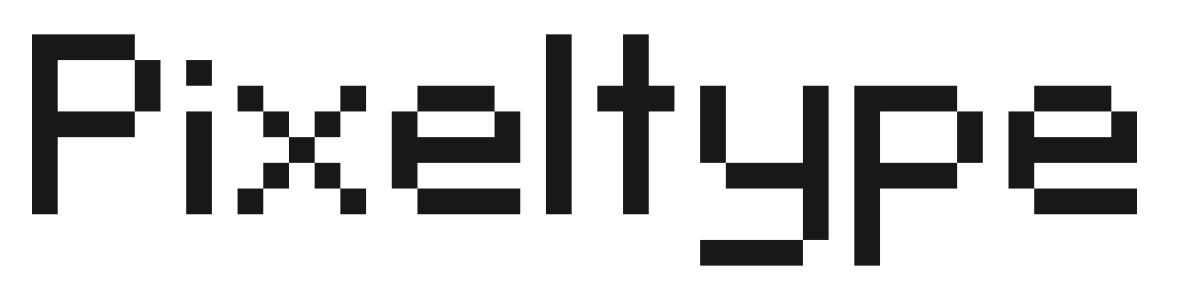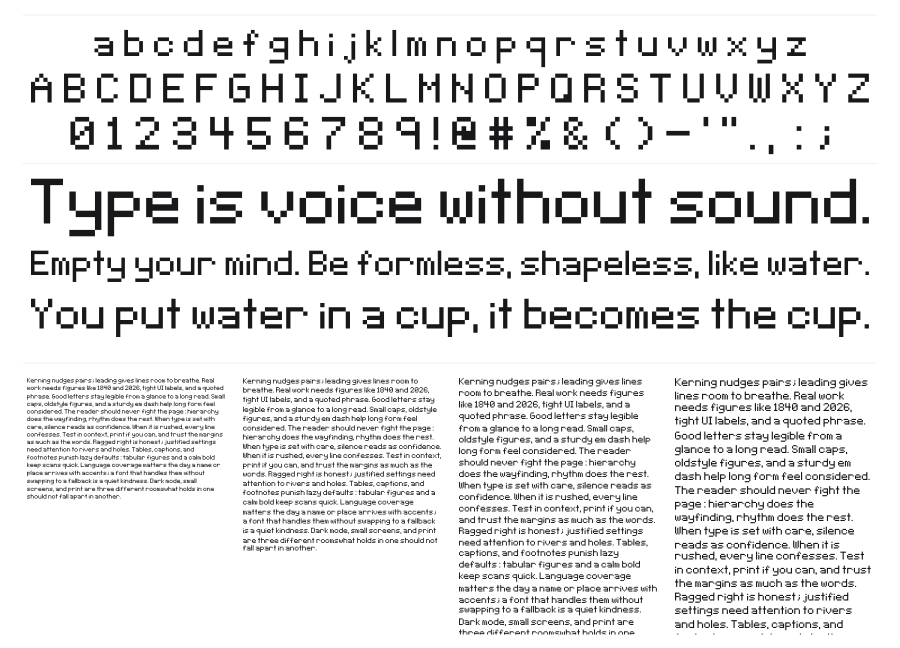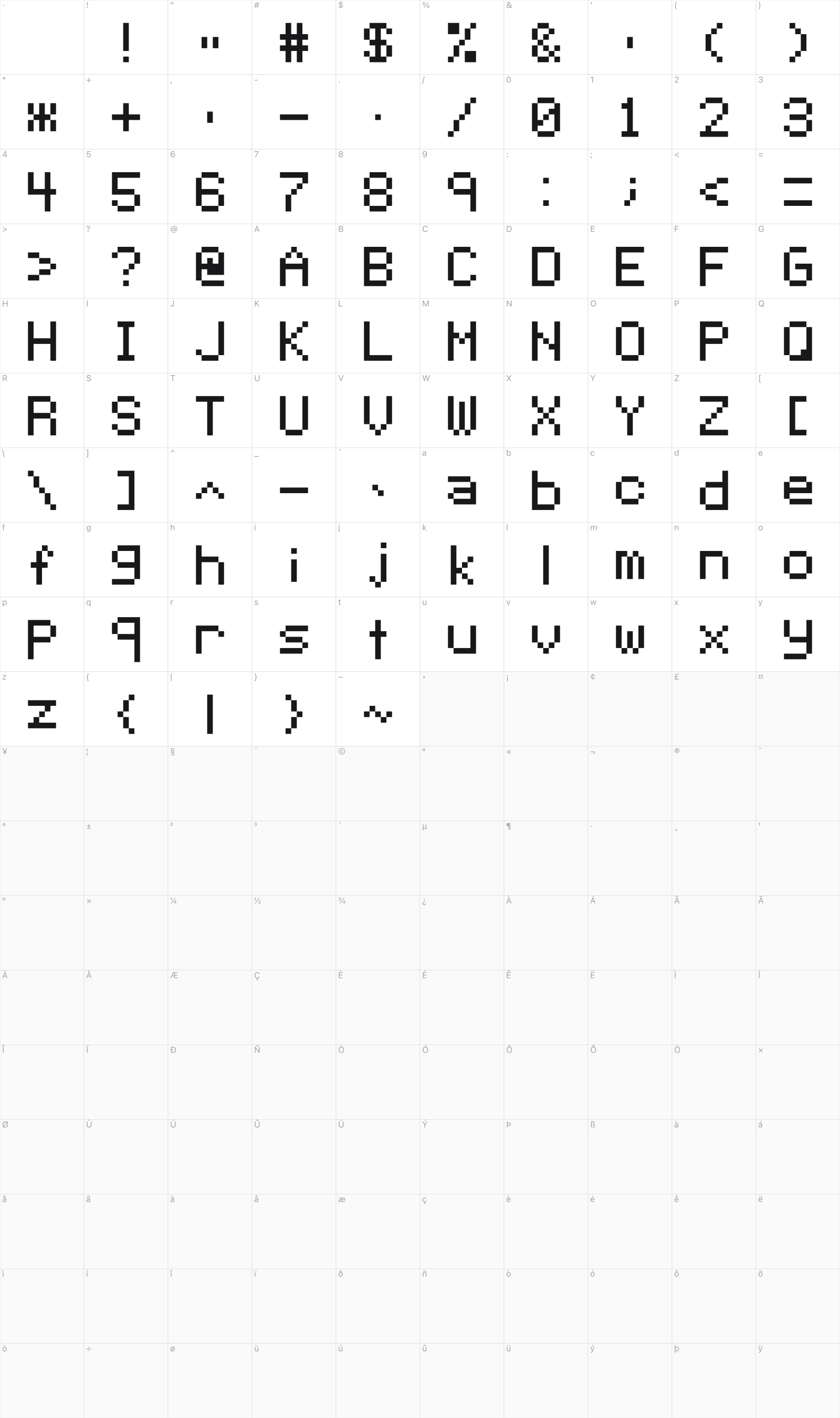
Pixeltype
Pixeltype is a chunky bitmap font built on a coarse pixel grid, with every character constructed from uniform square blocks. It captures the look of classic 8-bit video game text with a bold, readable weight that holds up well at large sizes. A natural choice for gaming projects, retro-themed interfaces, and anything that leans into digital nostalgia.